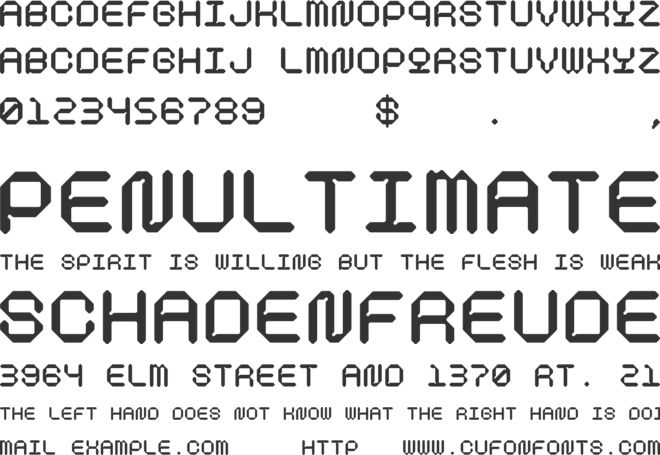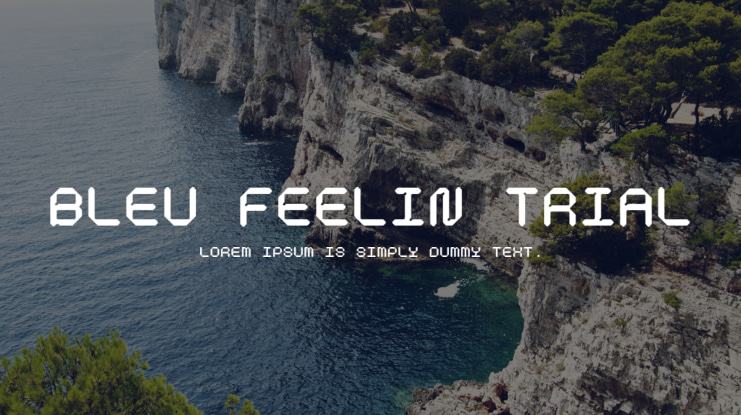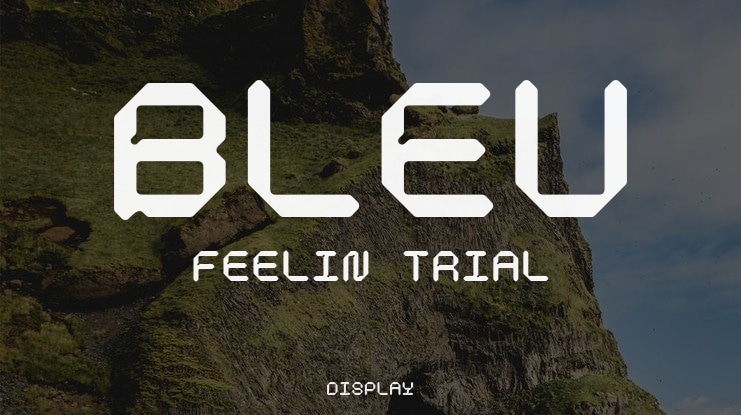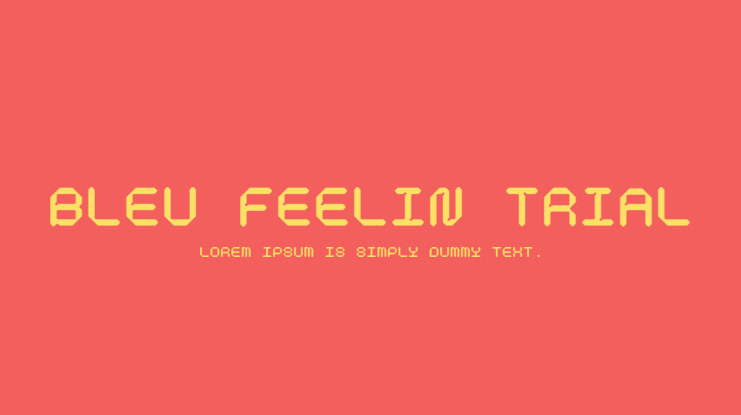
Bleu Feelin Trial Font
MT Bleu Feelin is a display font with a monospace typographic feel. Please pay attention to Small Caps, Oldstyle Figures, and Alternates. It's ideal for music album covers, posters, and magazines. Inspired by the electronic band from Bandung, Bleu House, which has a light and edgy electronic pop experimental music character, the idea emerged to create a font that translates sound into visual language.
The primary use of this font is for display purposes. Currently available in one regular weight, there are future plans to develop multiple masters and other experiments. The design concept of the MT Bleu Feelin Mono Regular font includes a 45-degree diagonal and geometric cut technique. Additionally, every corner is rounded, giving it a dynamic impression similar to electronic music.
I created this font design because I enjoy visual experiments and wanted to apply this to font characters. Monospaced fonts have an even width for each character, which is unique since most fonts are 'proportionally' spaced with varying character widths. While monospace is perfect in certain applications, proportional fonts continue to reign supreme for readability. However, the MT Bleu Feelin Mono Regular font is specifically intended for display use.